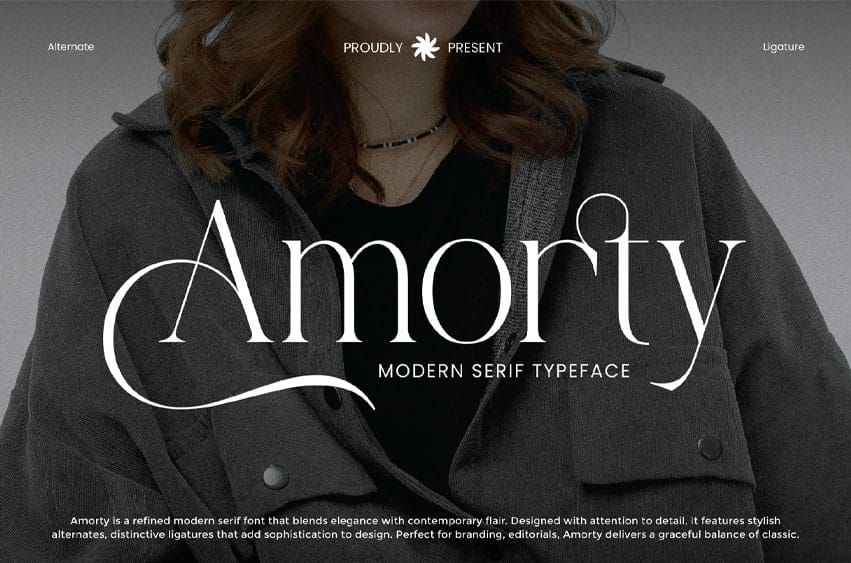
Amorty Font is a stylish modern serif font that blends timeless elegance with contemporary sophistication. Designed with high contrast strokes and distinctive character shapes, Amorty is the perfect choice for designers seeking a refined and luxurious aesthetic in their creative work.
Whether you’re working on branding, editorial design, packaging, logo design, website headers, or social media graphics, Amorty delivers a bold visual statement that captures attention. Its sharp serifs and sleek curves convey confidence, professionalism, and a sense of high-end appeal.
With both uppercase and lowercase letters, extensive punctuation, multilingual support, and a full set of stylistic alternates, Amorty offers exceptional versatility and creative freedom.
- Uppercase alphabet A-Z
- Lowercase alphabet a-z
- Numbers 0-9
- Some punctuation
- Alternates & Ligatures